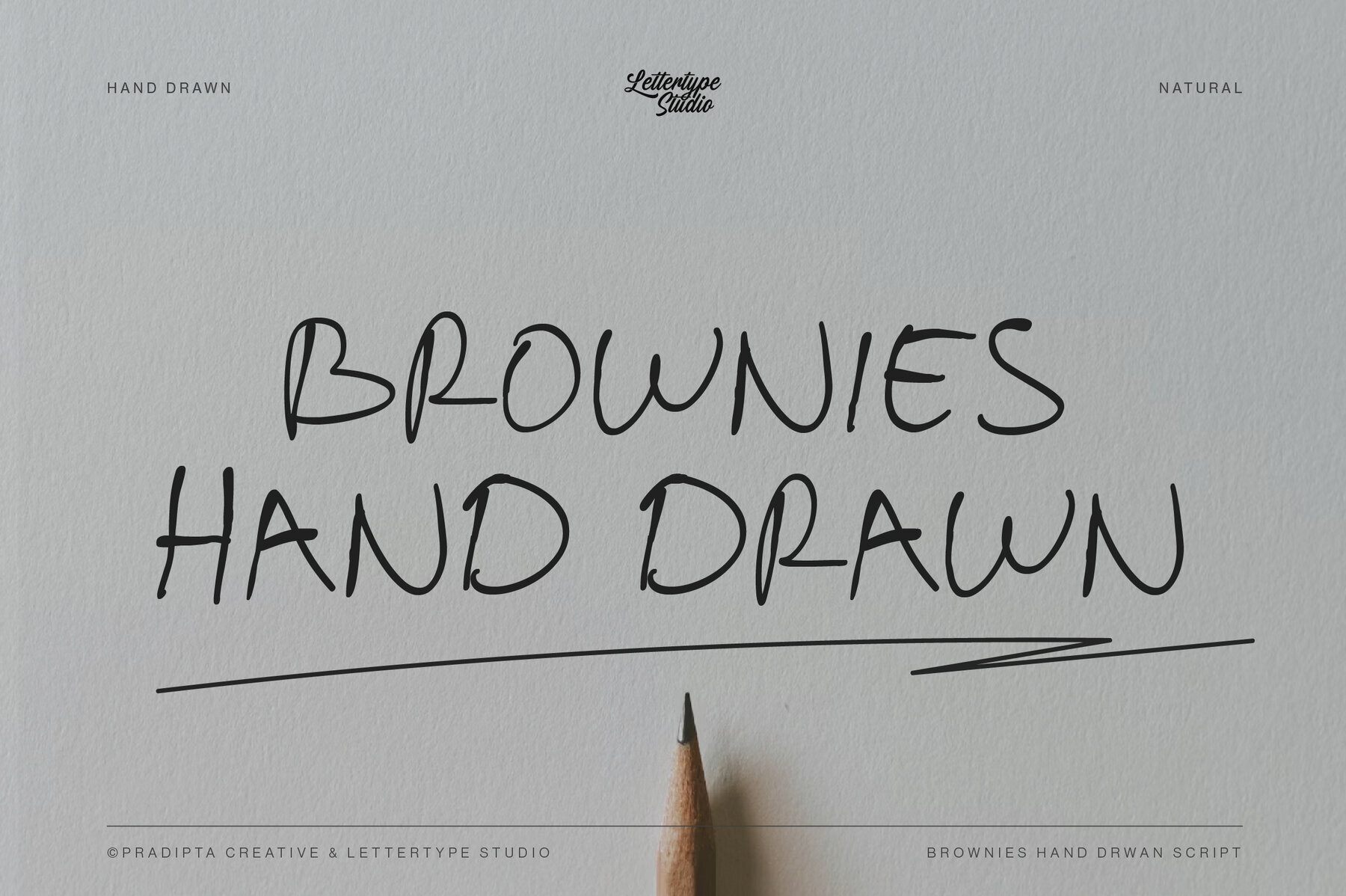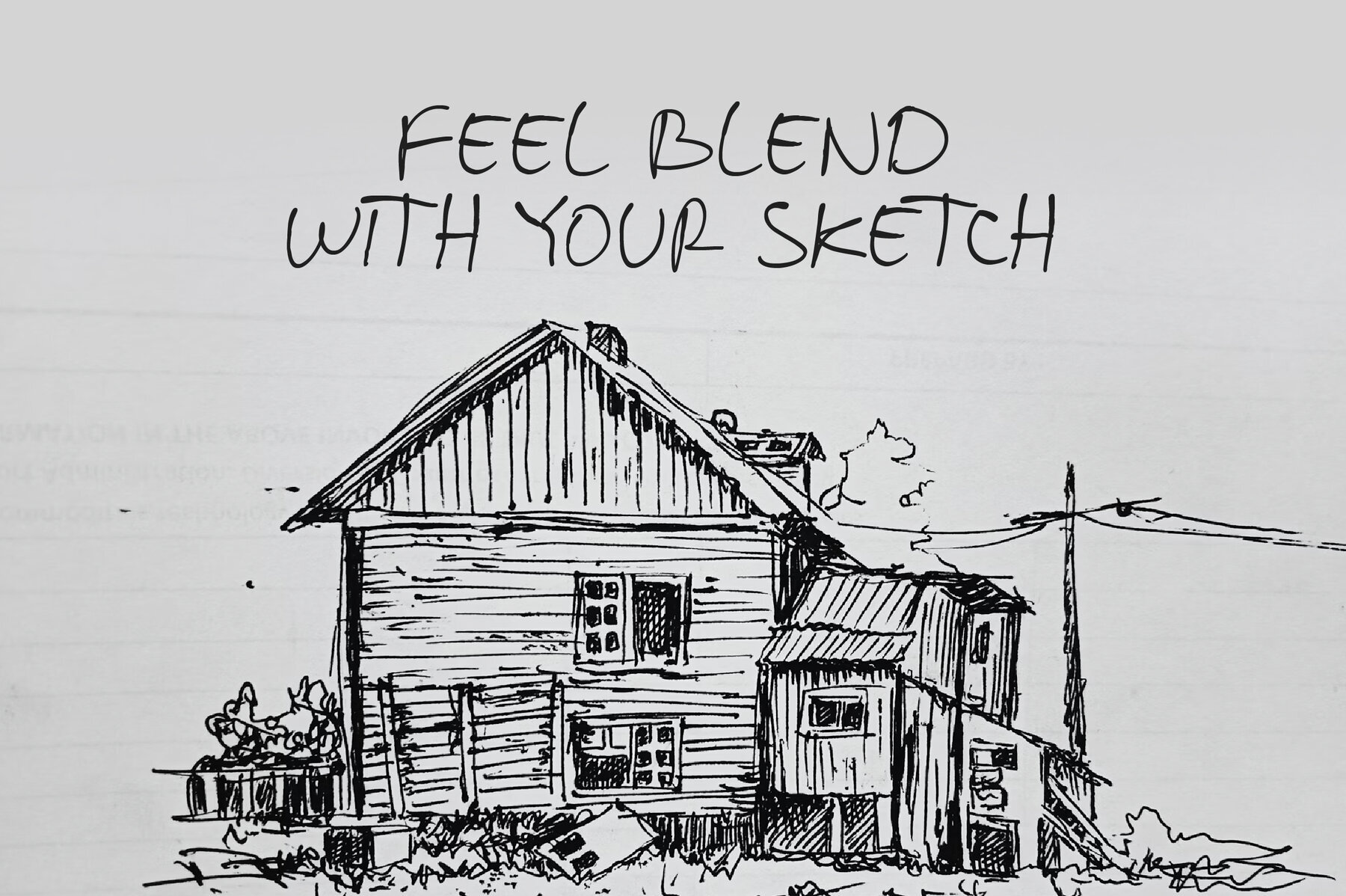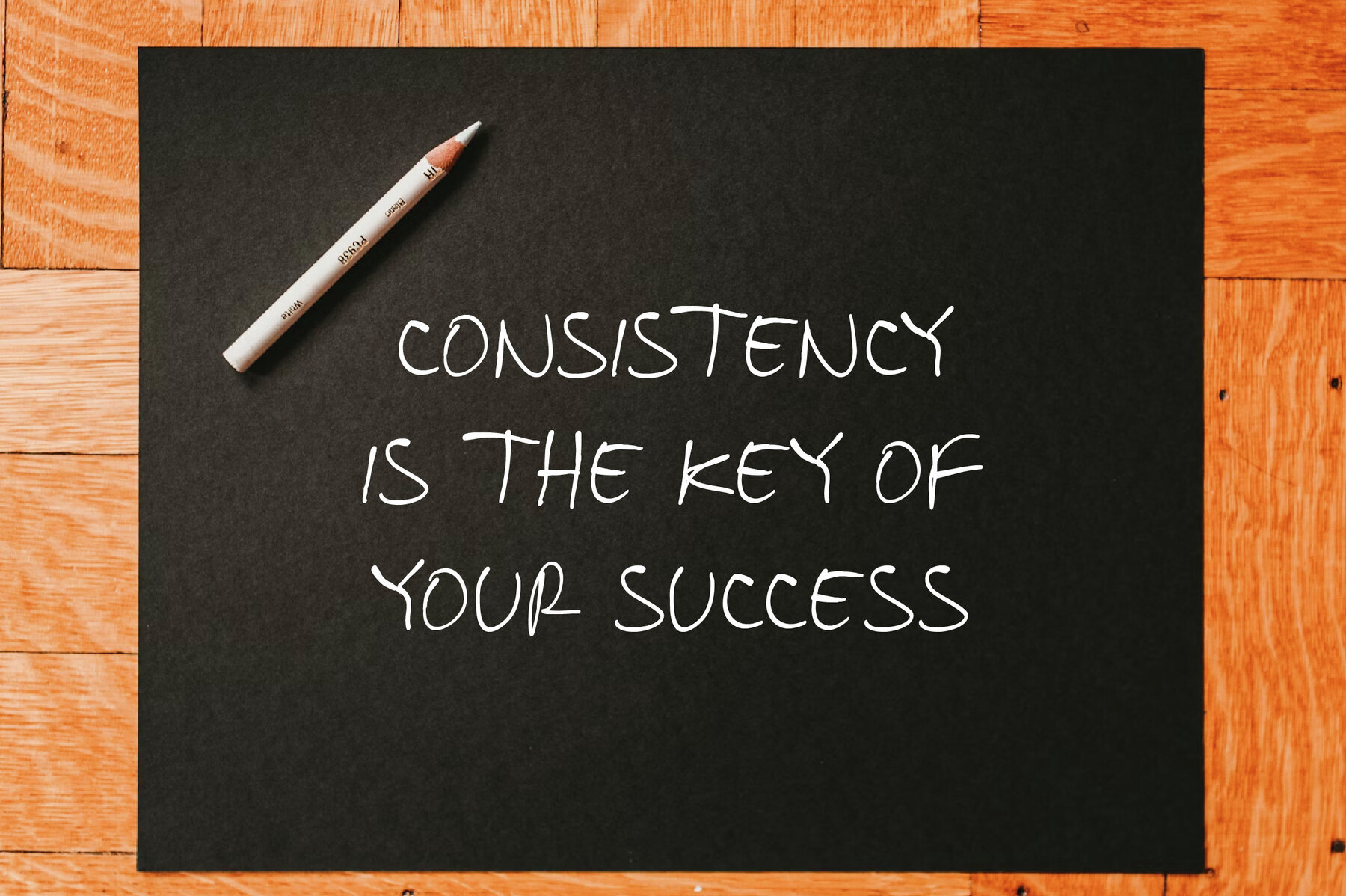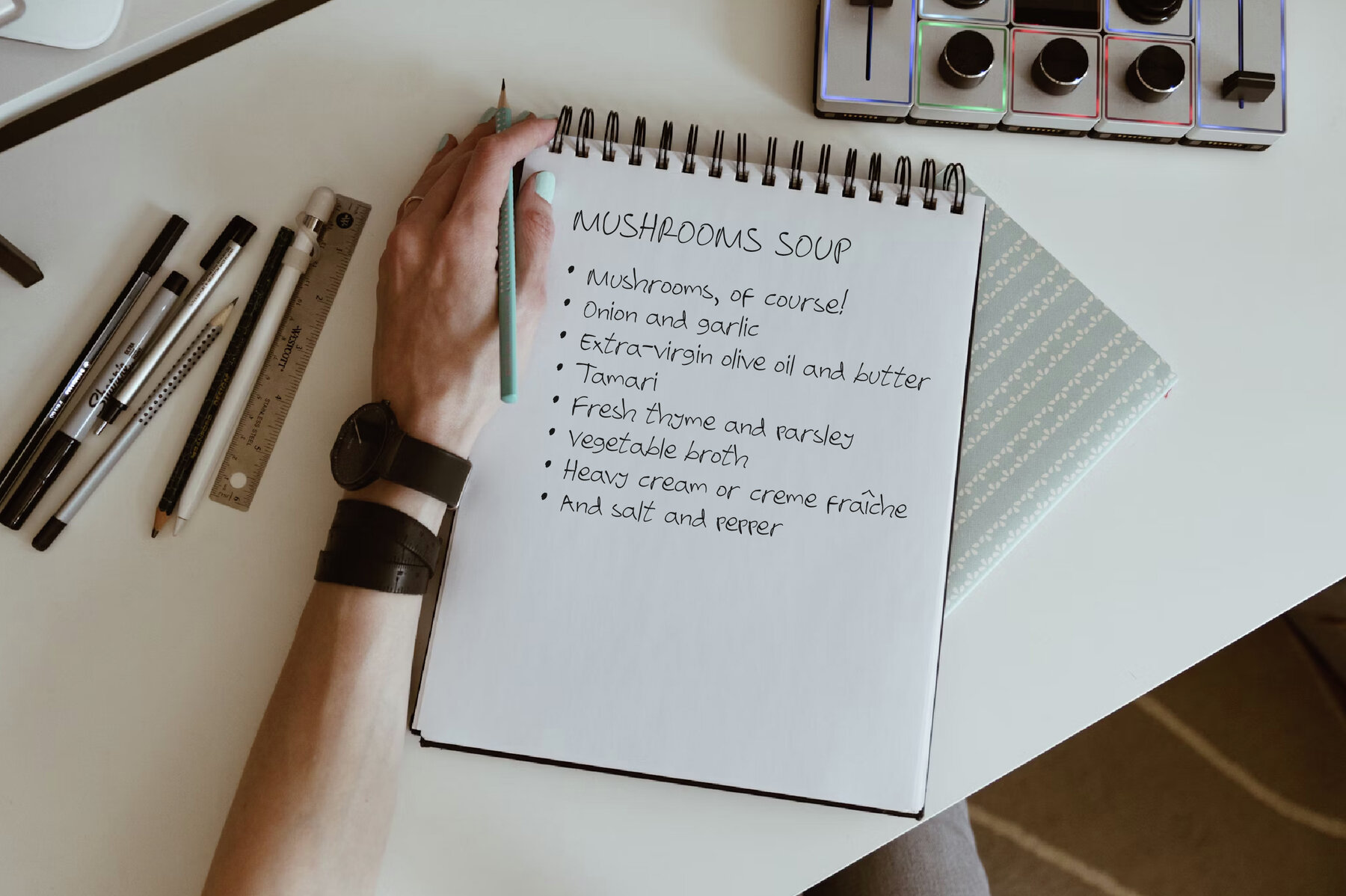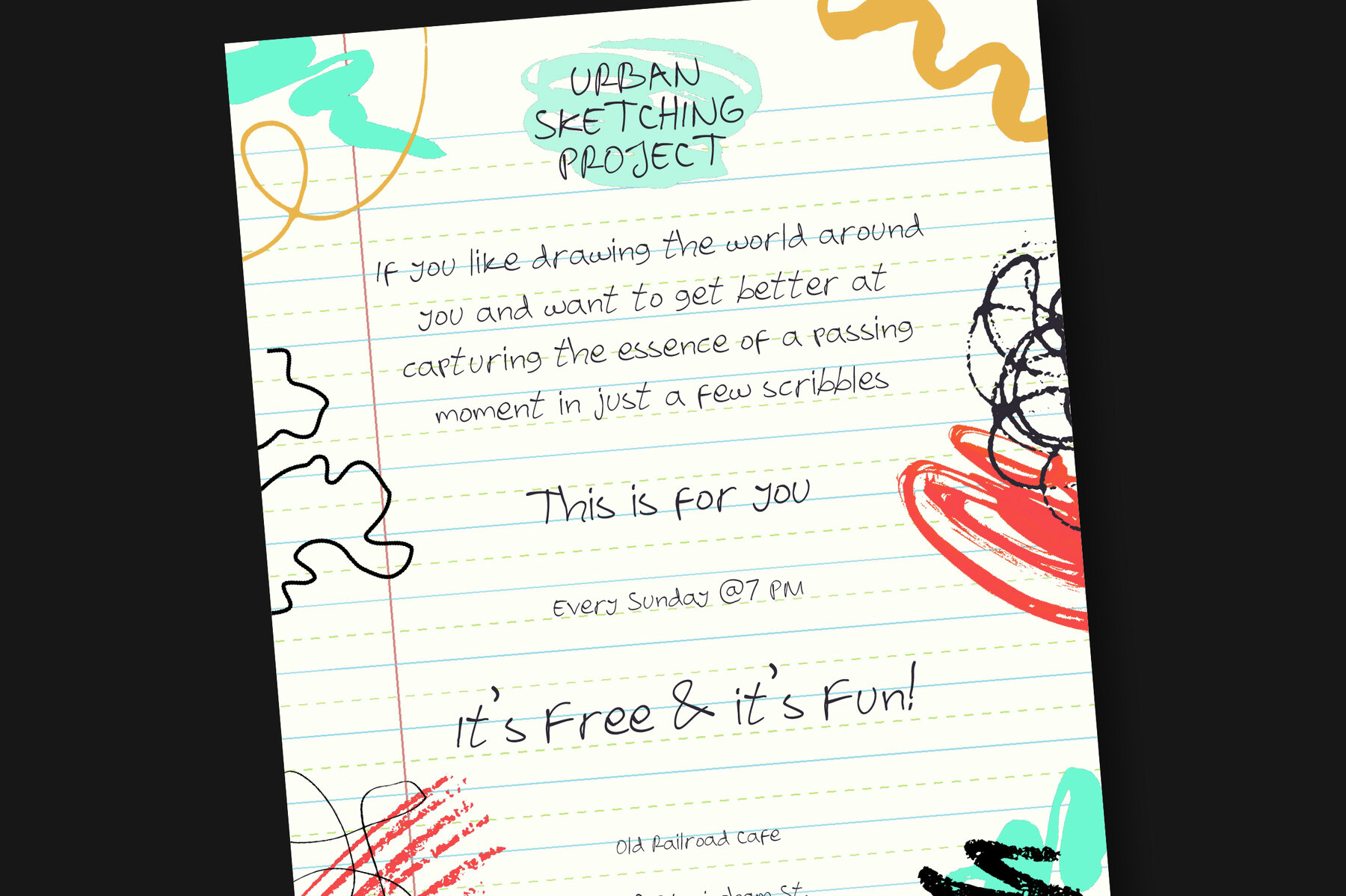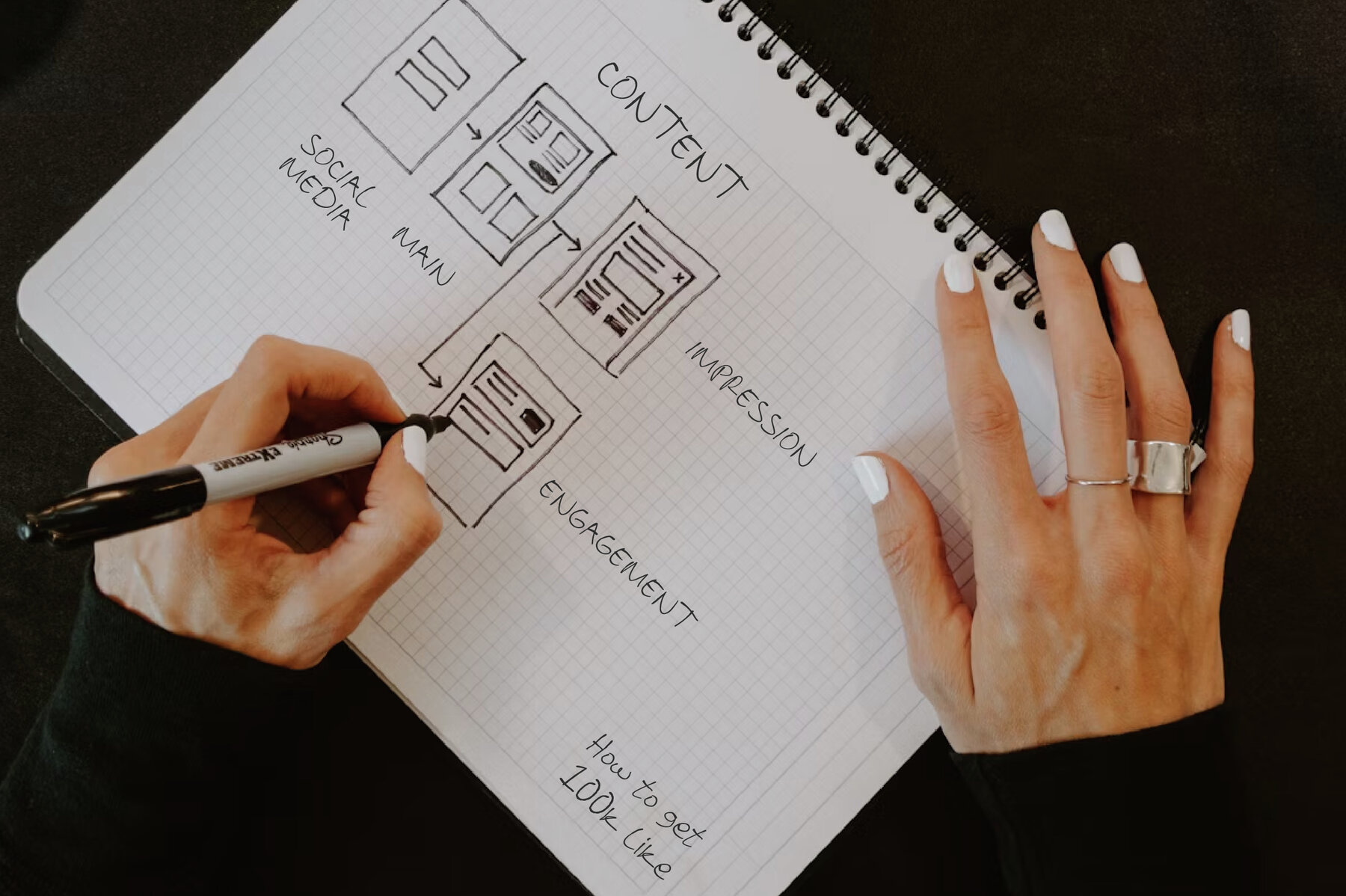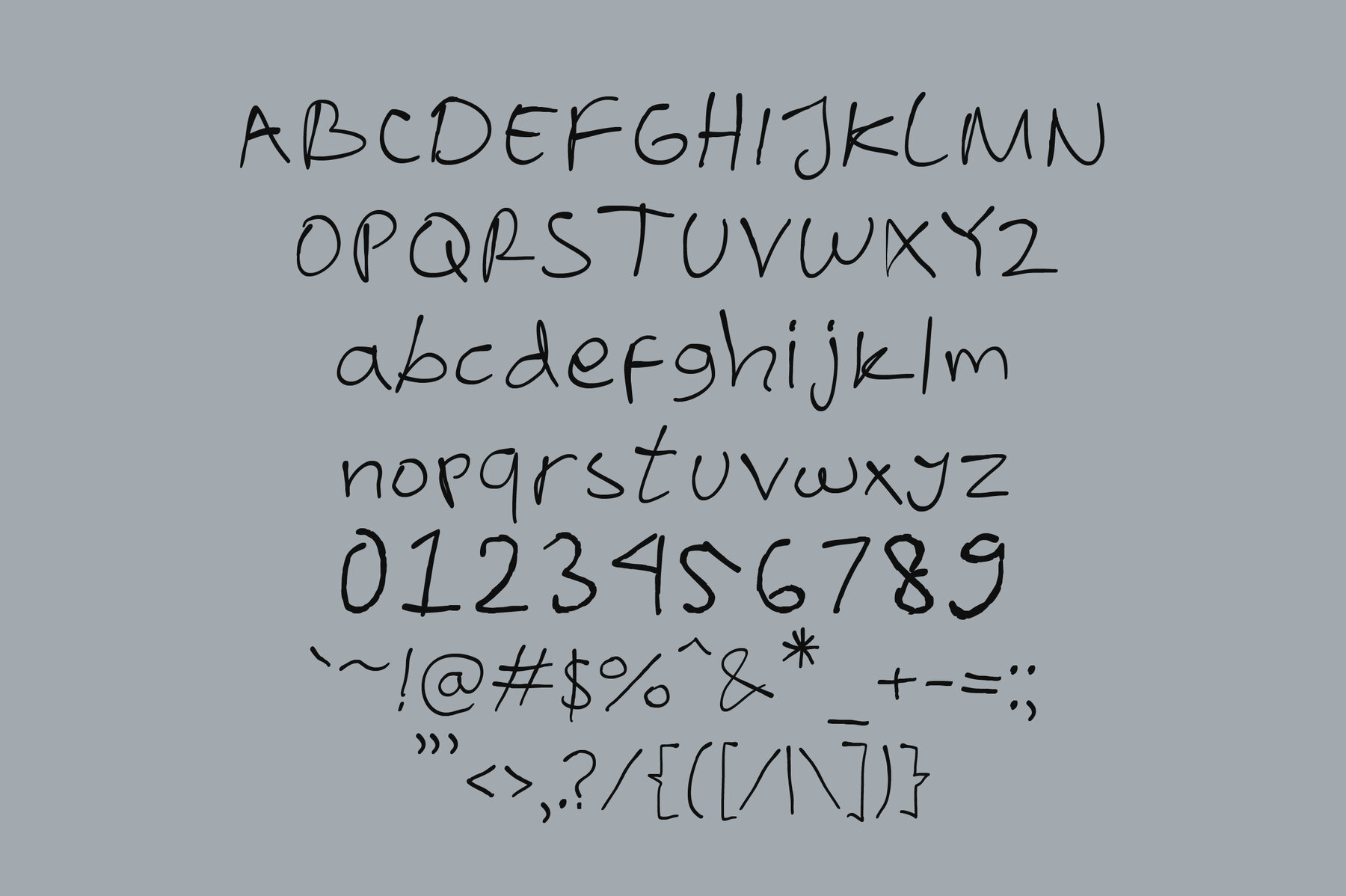
Brownies Font
Brownies Handdrawn Regular
Brownies Handdrawn is a script handwriting font that brings a genuine, personal touch to any project. Its natural flow and bold lines create handwritten logos and branding with authentic character. The font transitions seamlessly from delicate swashes to robust strokes, offering expressive options for a variety of designs. This versatile typeface excels at capturing attention and adding warmth to your visuals. The hand-crafted look is well-suited for wedding invitations, greeting cards, and custom stationery. Its distinctive style also complements packaging, labels, and products with a handmade feel. Brownies is equally at home in lifestyle graphics, social media posts, or creative journal projects.Brownies Handdrawn Script Handwriting Font